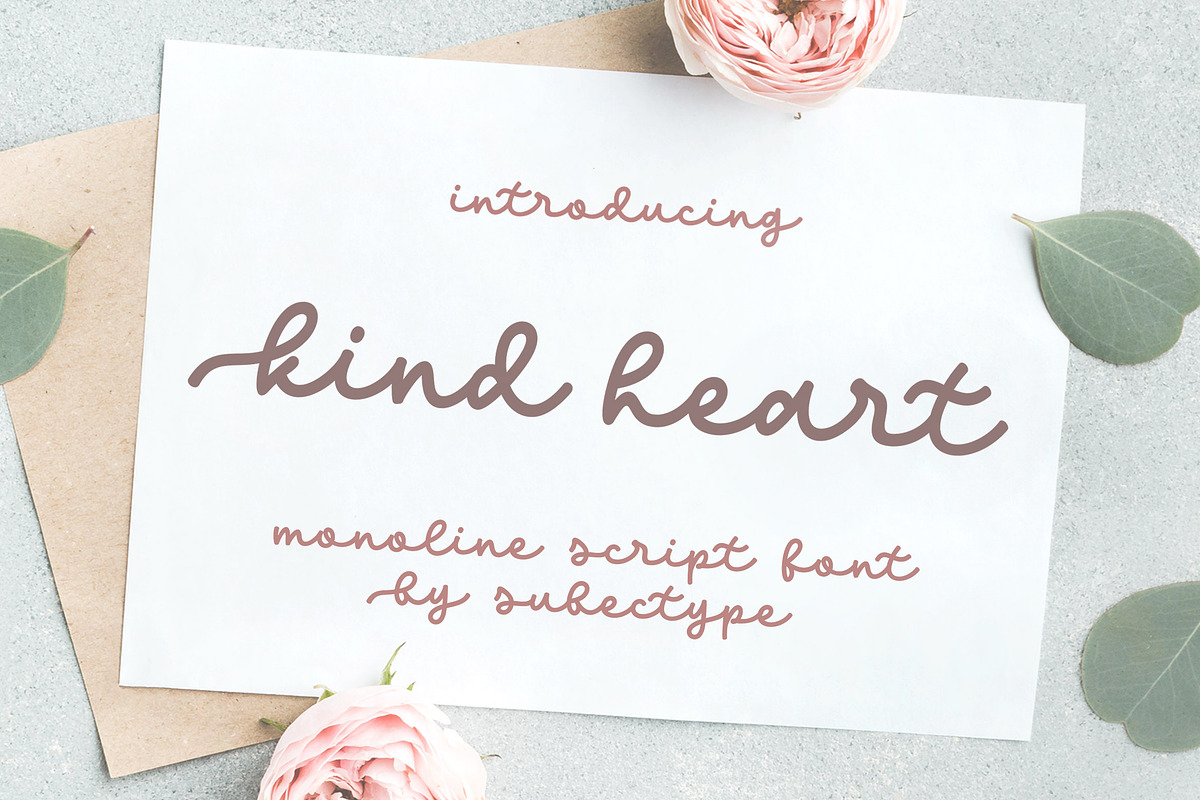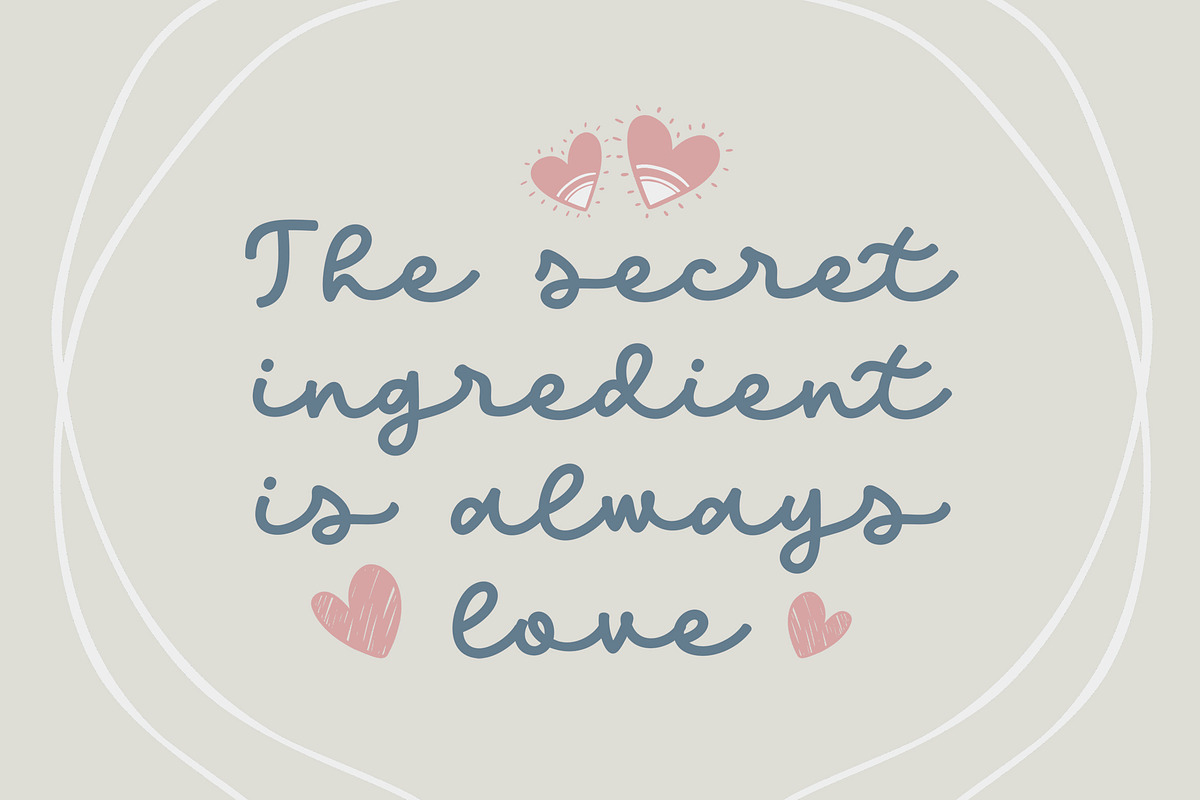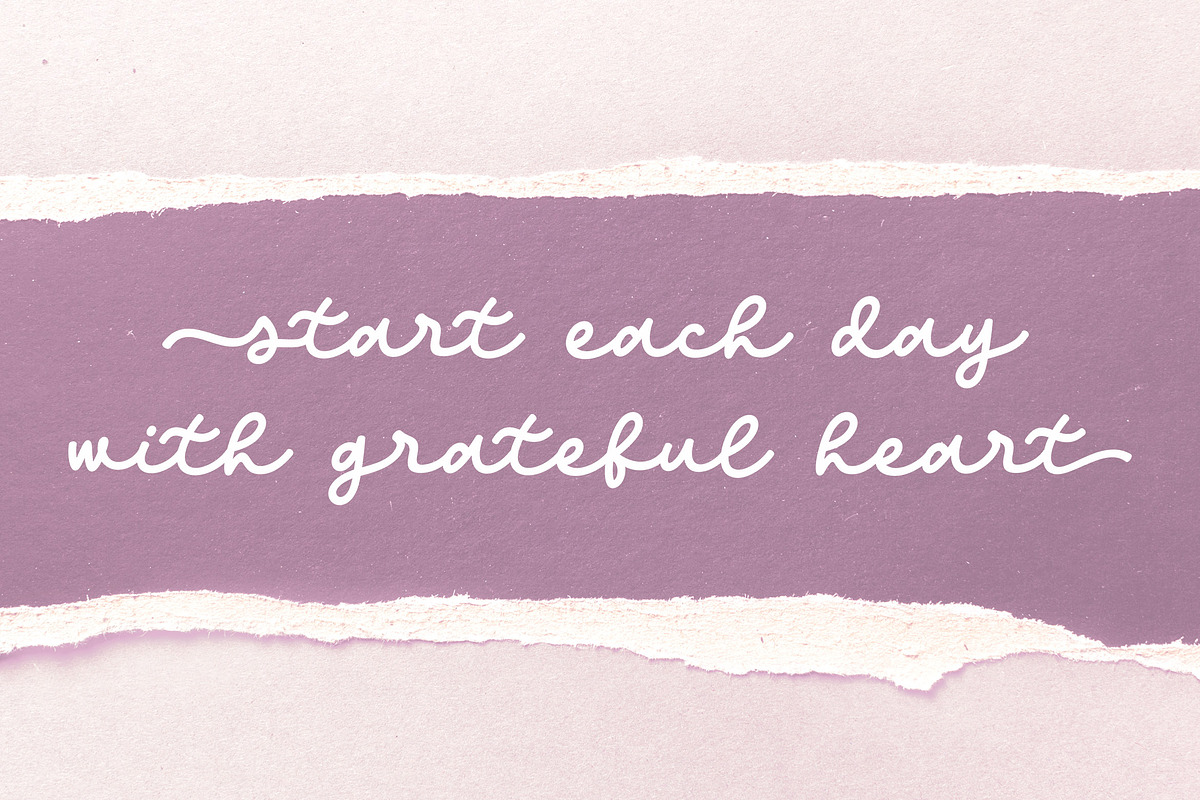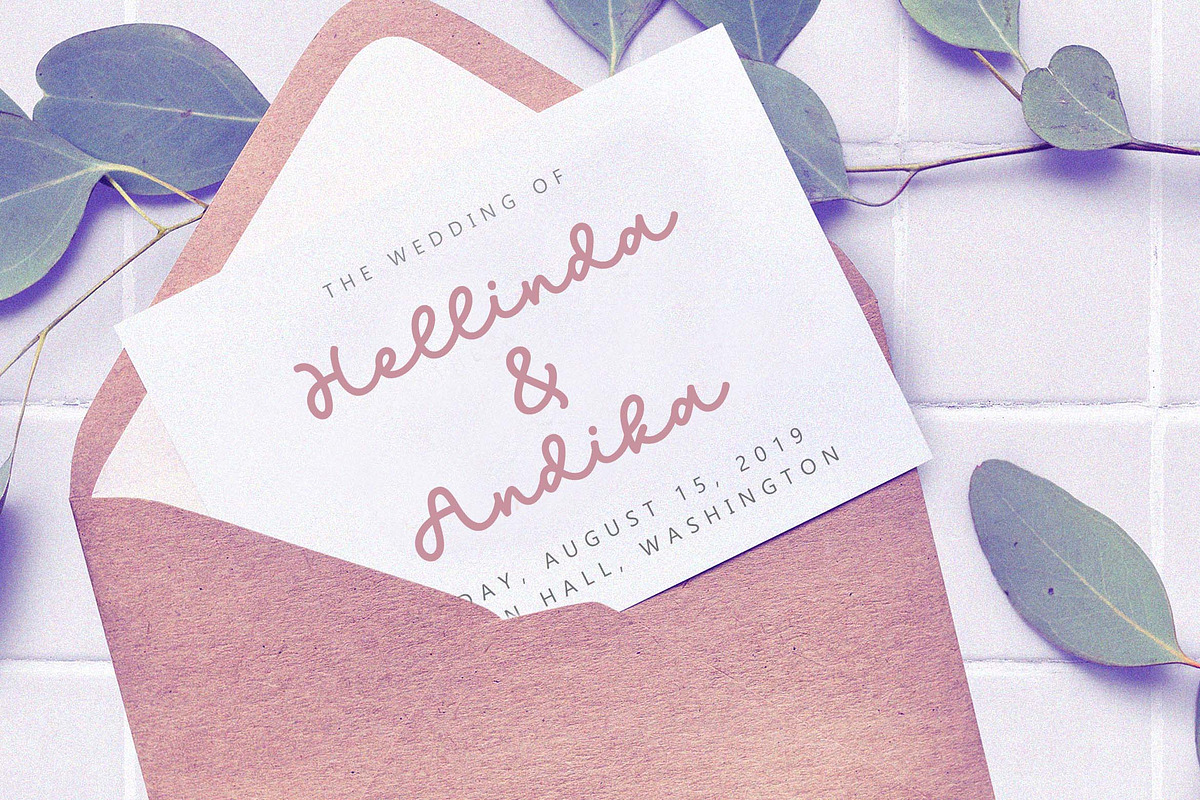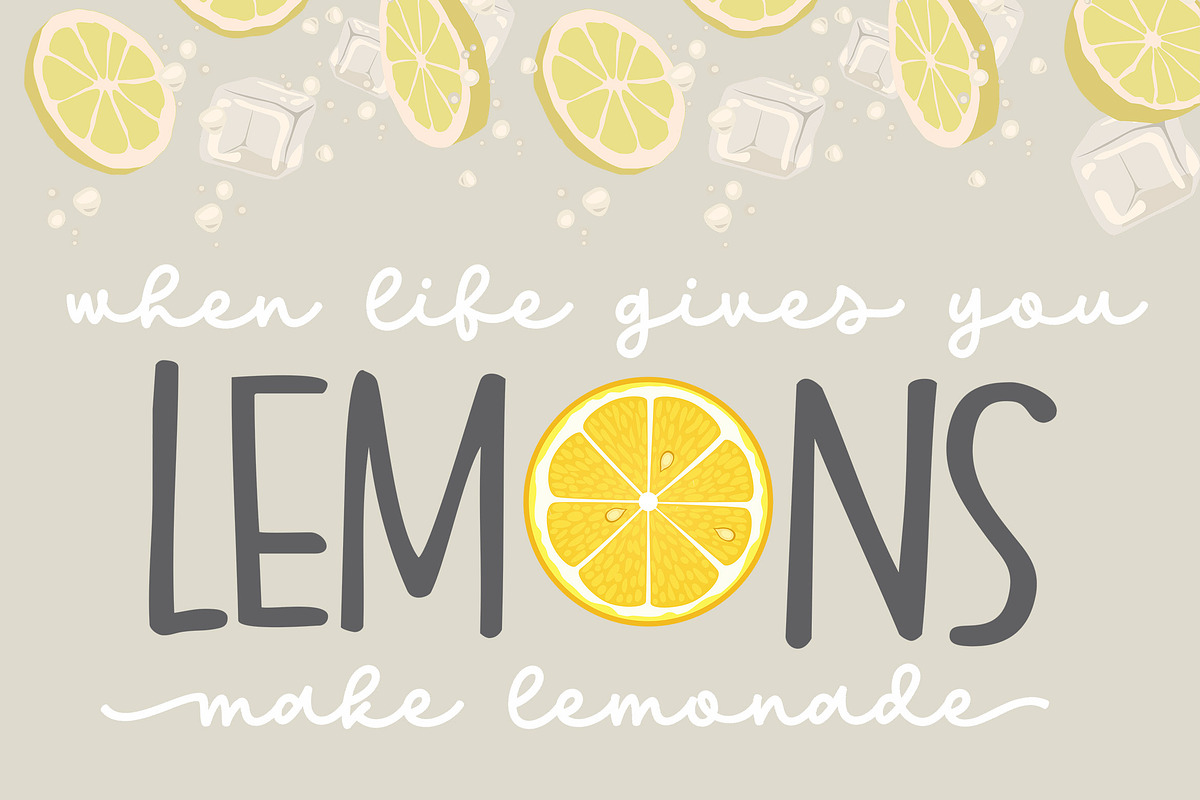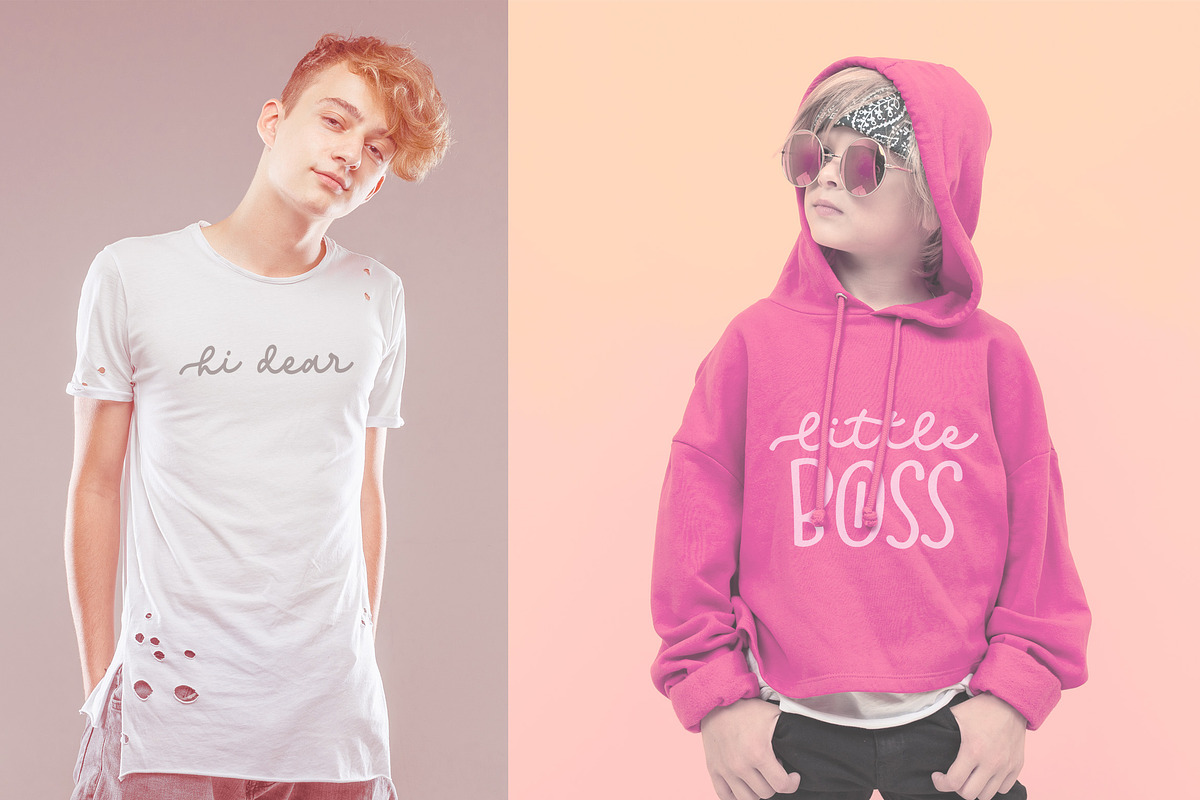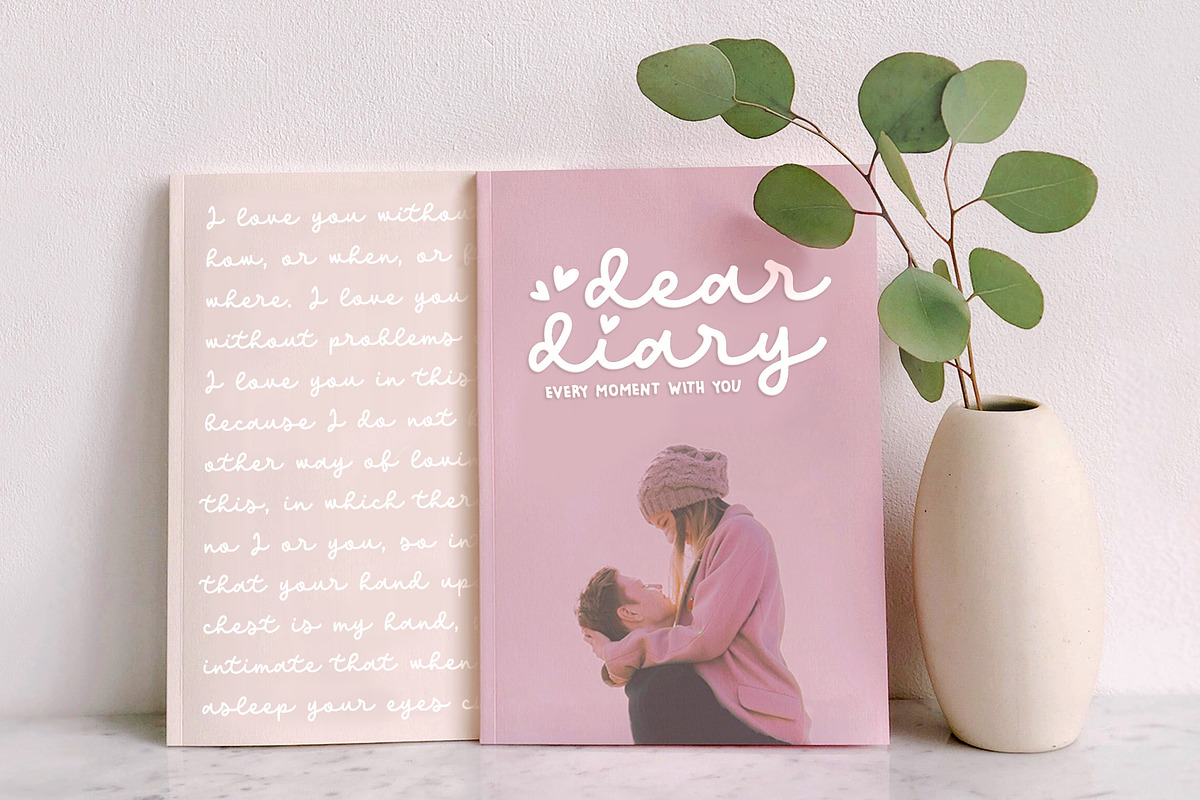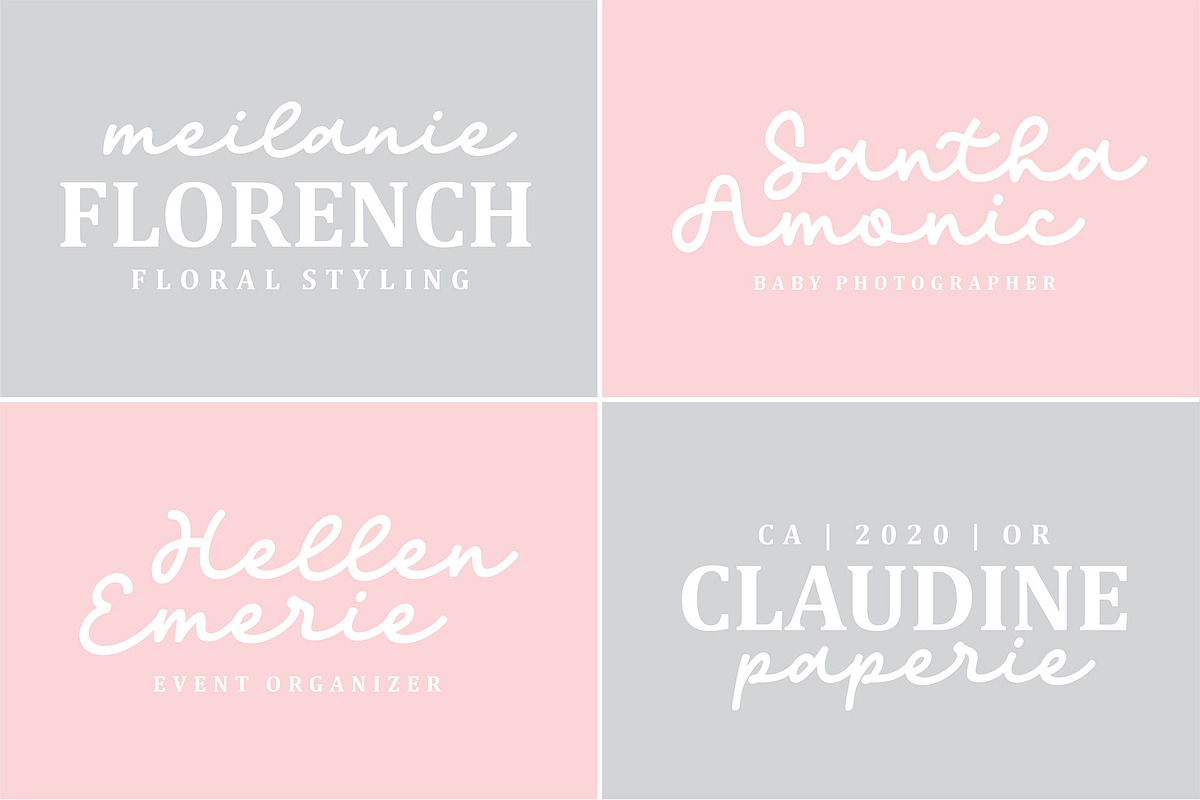
Kind Heart / Monoline Font
Kind Heart is a monoline script font with an cute style. It has good readability and is perfect for logos, invitations, wedding, signatures, and much more!